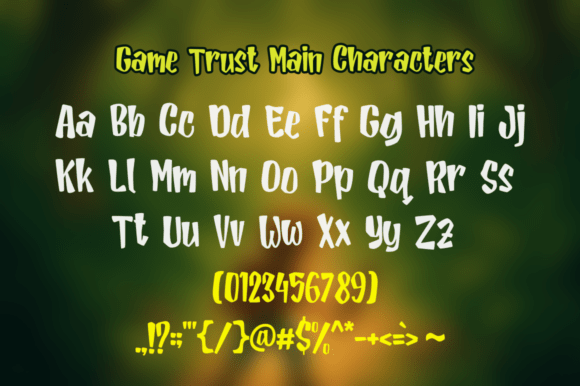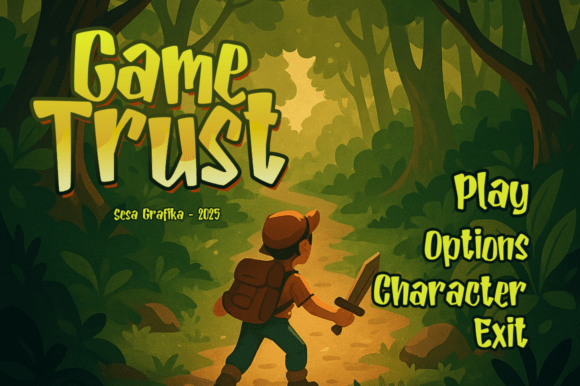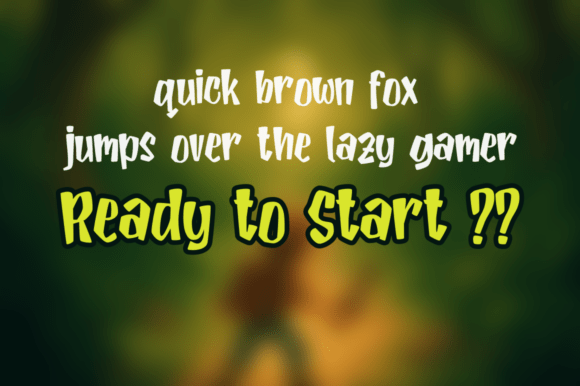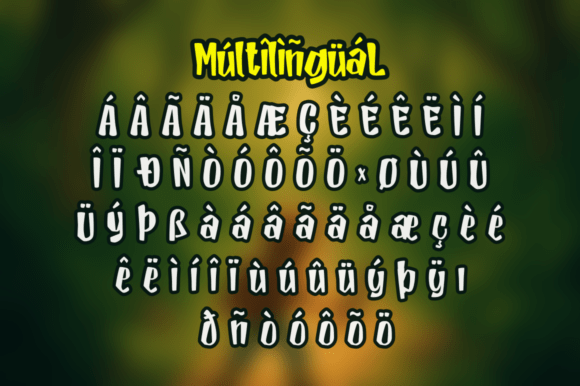
Introducing Game Trust Font: The Ultimate Choice for Playful and Adventurous Designs
Are you looking for a font that can add a dynamic energy to your designs? Do you want to create a playful and adventurous feel for your game titles, children’s books, or adventure-themed projects? Look no further than Game Trust Font! This bold and fun display font is perfect for designers and crafters who want to bring their vision to life with a quirky and adventurous vibe.
Inspired by Classic Game Aesthetics and Cartoon Styles
Game Trust Font is inspired by the classic game aesthetics and cartoon styles that we all love. The font’s design is reminiscent of the bold and colorful graphics found in old-school video games and cartoons. With its thick strokes, quirky shapes, and adventurous vibe, Game Trust Font is sure to bring a nostalgic feel to your designs.
Game Trust Font is a versatile font that can be used for a variety of design projects. Whether you’re designing a logo, poster, packaging, or a children’s book, this font is sure to make your design stand out. The font’s playful and adventurous feel makes it perfect for:
- Game titles: Add a bold and fun touch to your game titles with Game Trust Font.
- Children’s books: Create a whimsical and adventurous feel for your children’s books with this font.
- Adventure-themed projects: Perfect for designing posters, flyers, or brochures for adventure-themed events or activities.
- Logos and branding: Use Game Trust Font to create a bold and memorable logo for your brand.
- Packaging design: Add a playful touch to your packaging design with this font.
Key Features of Game Trust Font
So, what makes Game Trust Font so special? Here are some of its key features:
- Bold and fun display font: Game Trust Font is a bold and fun display font that’s perfect for making a statement.
- Thick strokes: The font’s thick strokes give it a bold and playful feel.
- Quirky shapes: The font’s quirky shapes add a touch of whimsy and adventure to your designs.
- Adventurous vibe: Game Trust Font has an adventurous vibe that’s perfect for creating a sense of excitement and energy.
Why Choose Game Trust Font?
So, why should you choose Game Trust Font for your design projects? Here are just a few reasons:
- Unique and eye-catching: Game Trust Font is a unique and eye-catching font that’s sure to make your designs stand out.
- Easy to read: Despite its bold and playful feel, Game Trust Font is easy to read, even at smaller sizes.
- Versatile: This font can be used for a variety of design projects, from logos and branding to packaging and posters.
- Fun and adventurous: Game Trust Font is the perfect choice for designers who want to add a fun and adventurous touch to their designs.
How to Use Game Trust Font
Using Game Trust Font is easy! Here are a few tips to get you started:
- Use it as a display font: Game Trust Font is perfect for use as a display font, where it can make a bold and eye-catching statement.
- Pair it with other fonts: Try pairing Game Trust Font with other fonts to create a unique and interesting contrast.
- Experiment with colors: Game Trust Font looks great in bold and bright colors, so don’t be afraid to experiment and find the perfect color for your design.
In conclusion, Game Trust Font is a bold and fun display font that’s perfect for designers and crafters who want to add a playful and adventurous touch to their designs. With its thick strokes, quirky shapes, and adventurous vibe, this font is sure to bring a dynamic energy to your work. Whether you’re designing a game title, children’s book, or adventure-themed project, Game Trust Font is the perfect choice. So why wait? Try Game Trust Font today and bring your vision to life!